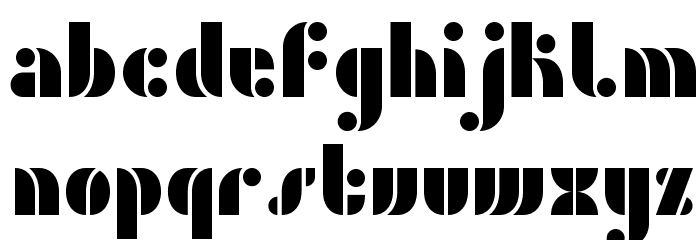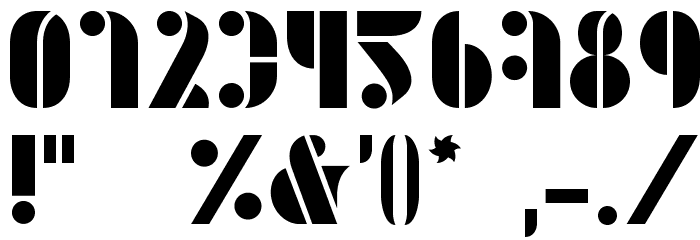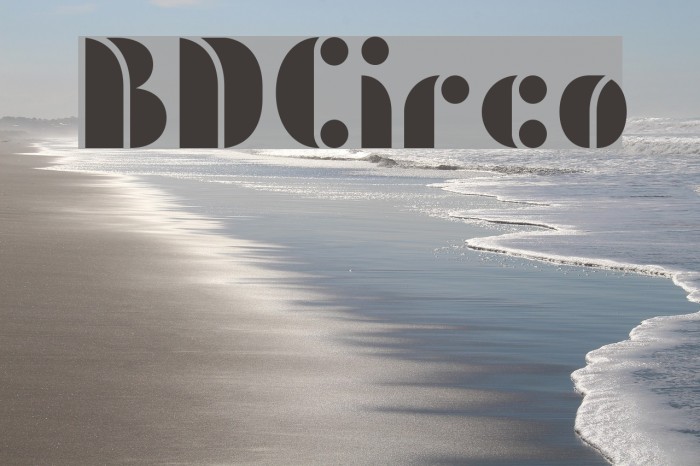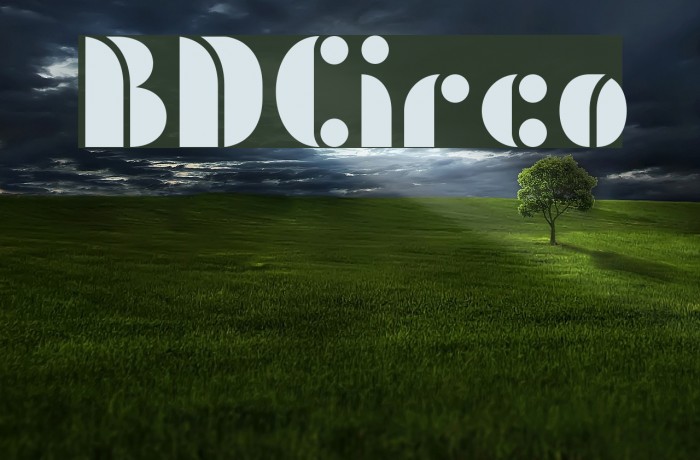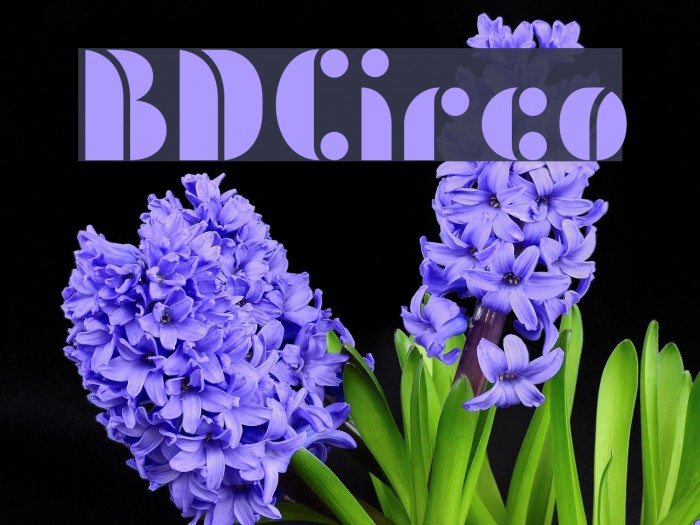
BDCirco Font
This font features a bold and playful design with a distinct geometric style. Each character is crafted with a combination of solid shapes and circular cutouts, creating a unique and eye-catching appearance. The uppercase and lowercase letters maintain a consistent style, with rounded edges and a strong presence. Numbers and special characters follow the same design principles, ensuring uniformity across all glyphs. The font's boldness and geometric nature make it ideal for projects that require a modern and artistic touch.
A bold, geometric font with playful circular cutouts.
- Proposed Projects: Ideal for posters, branding, packaging, and any design project that seeks a modern, artistic flair.